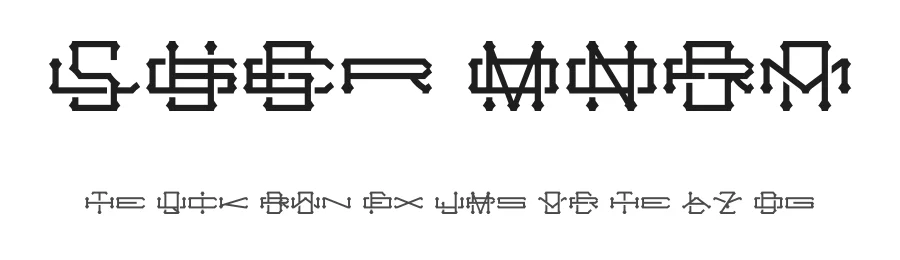
About Dmitrieva SP Font
Dmitrieva SP is a display font designed by Sasha Pavljenko, Tatiana Dmitrieva. It includes 101 glyphs, a regular weight, OTF (CFF) format, and 204 languages. Dmitrieva SP is free to download; check the license details on this page before commercial use. Display fonts like Dmitrieva SP work best for logos, posters, headlines, and eye-catching social media graphics.
Dmitrieva SP supports 204 languages.
Dmitrieva SP Font is a display font that shines as a display or heading face. Pair it with a clean sans-serif or serif font for body text โ the contrast creates a clear hierarchy while the two styles stay balanced and easy to read.
Dmitrieva SP Font
by Sasha Pavljenko, Tatiana Dmitrieva
Dmitrieva SP Font is a display typeface by Sasha Pavljenko, Tatiana Dmitrieva, ideal for logos, invitations, branding, and creative projects.